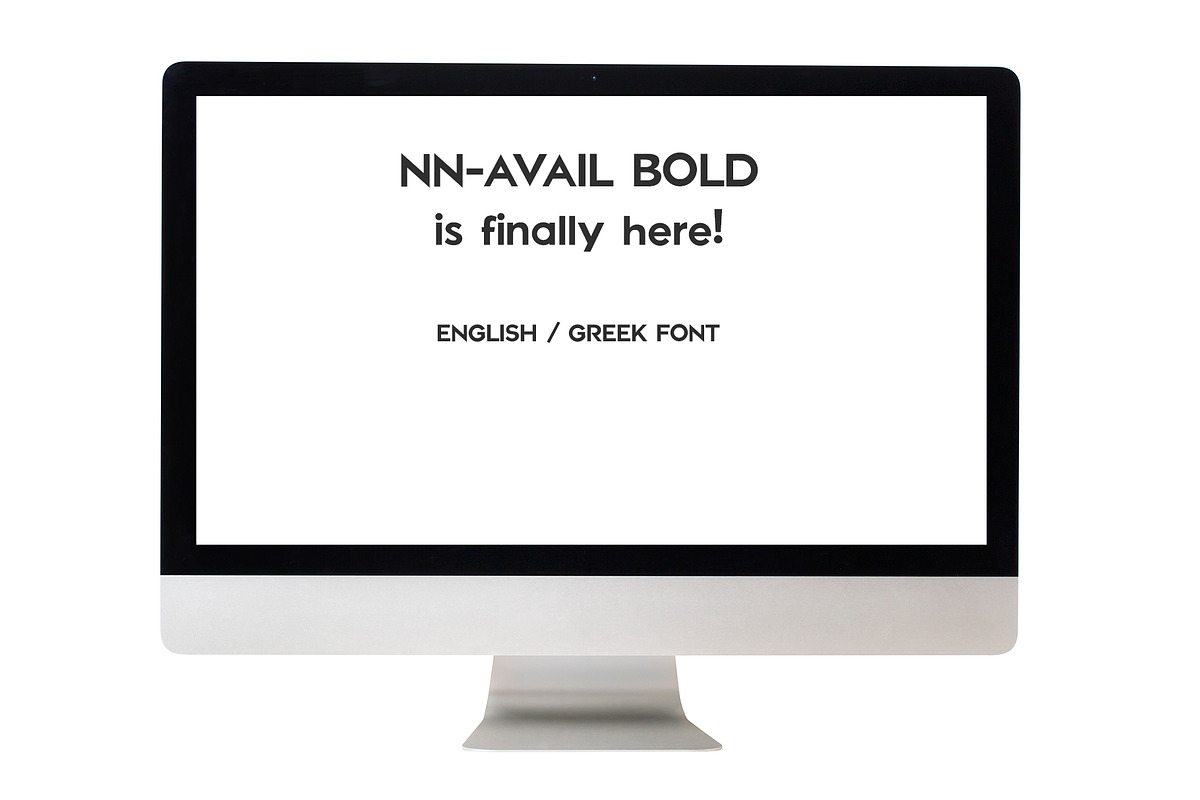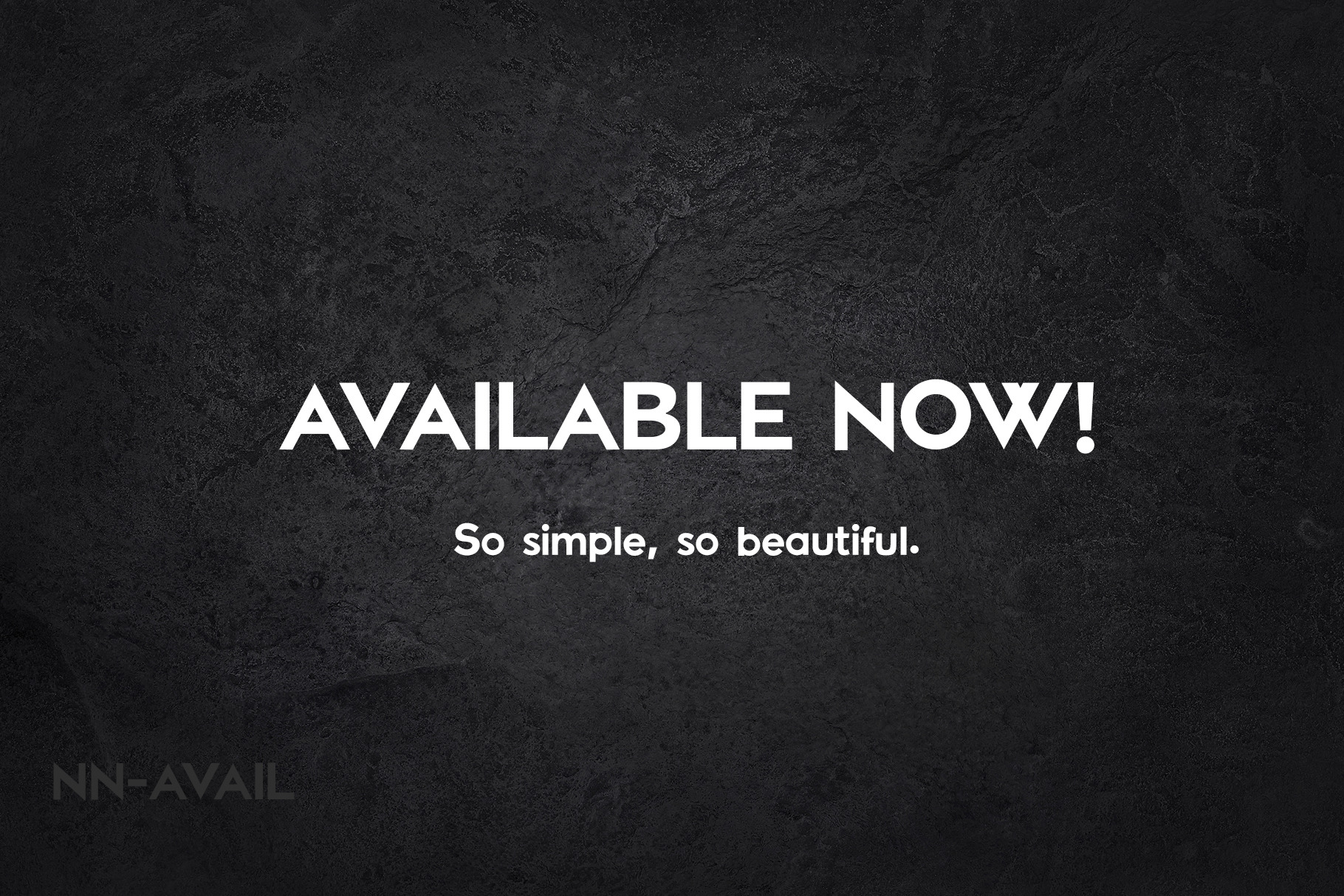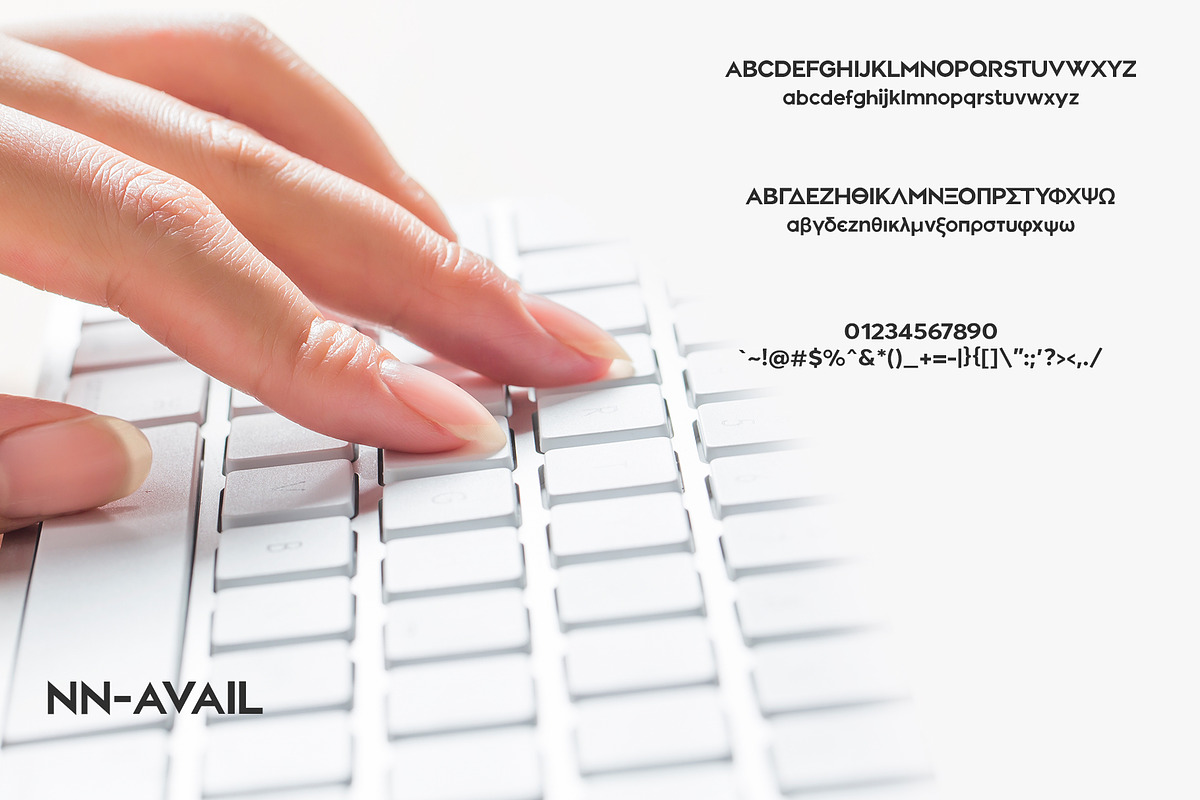
NN-AVAIL Bold font
Finally here! NN-AVAIL is available in creativemarket. So simple but at the same time so beautiful! I'm always looking for a simple, bold font, a bit square... a bit curved... I usually create logos and then trying to modify the font. Not anymore! Now, it's ready to use it in your (and my) projects.